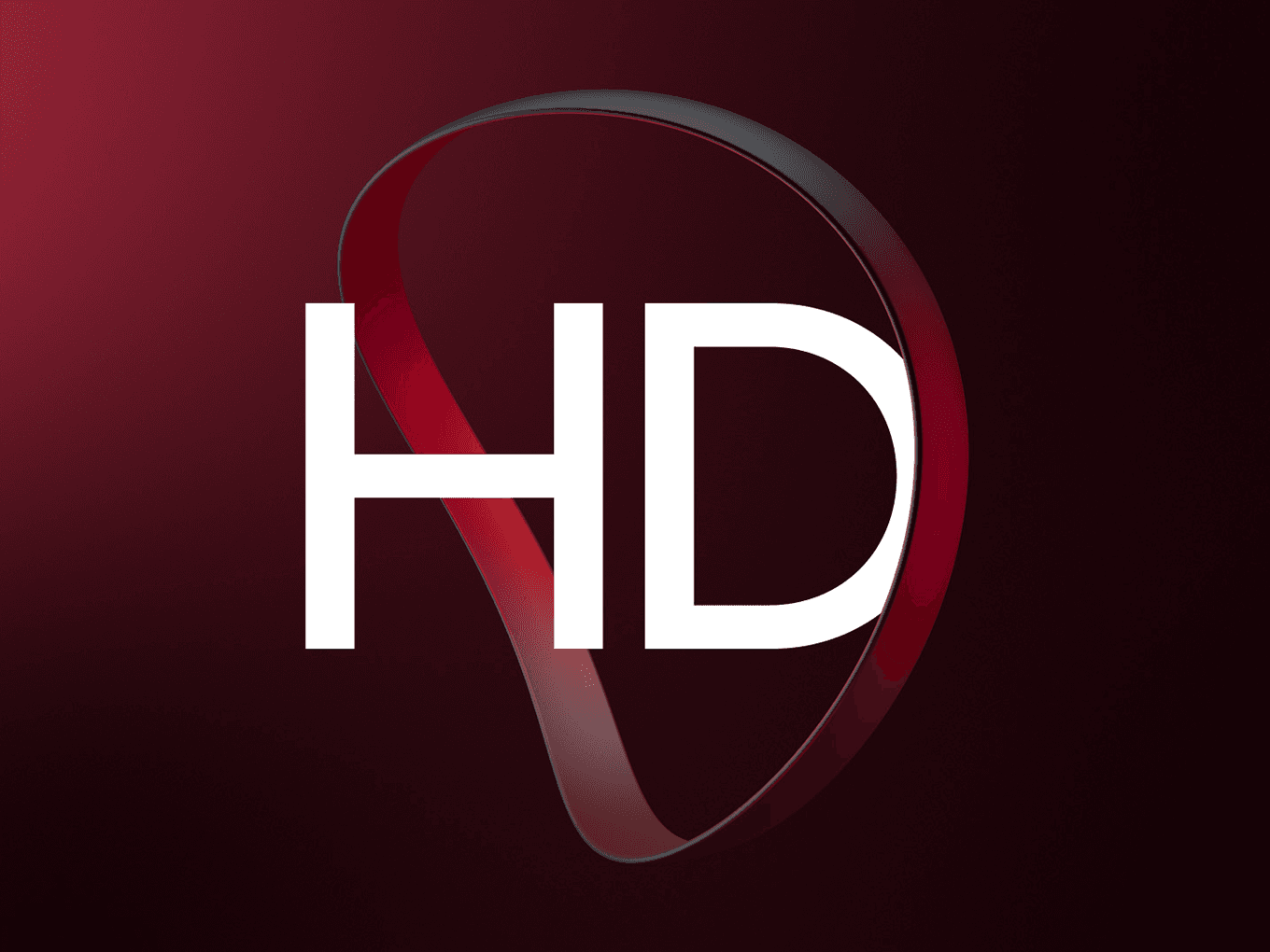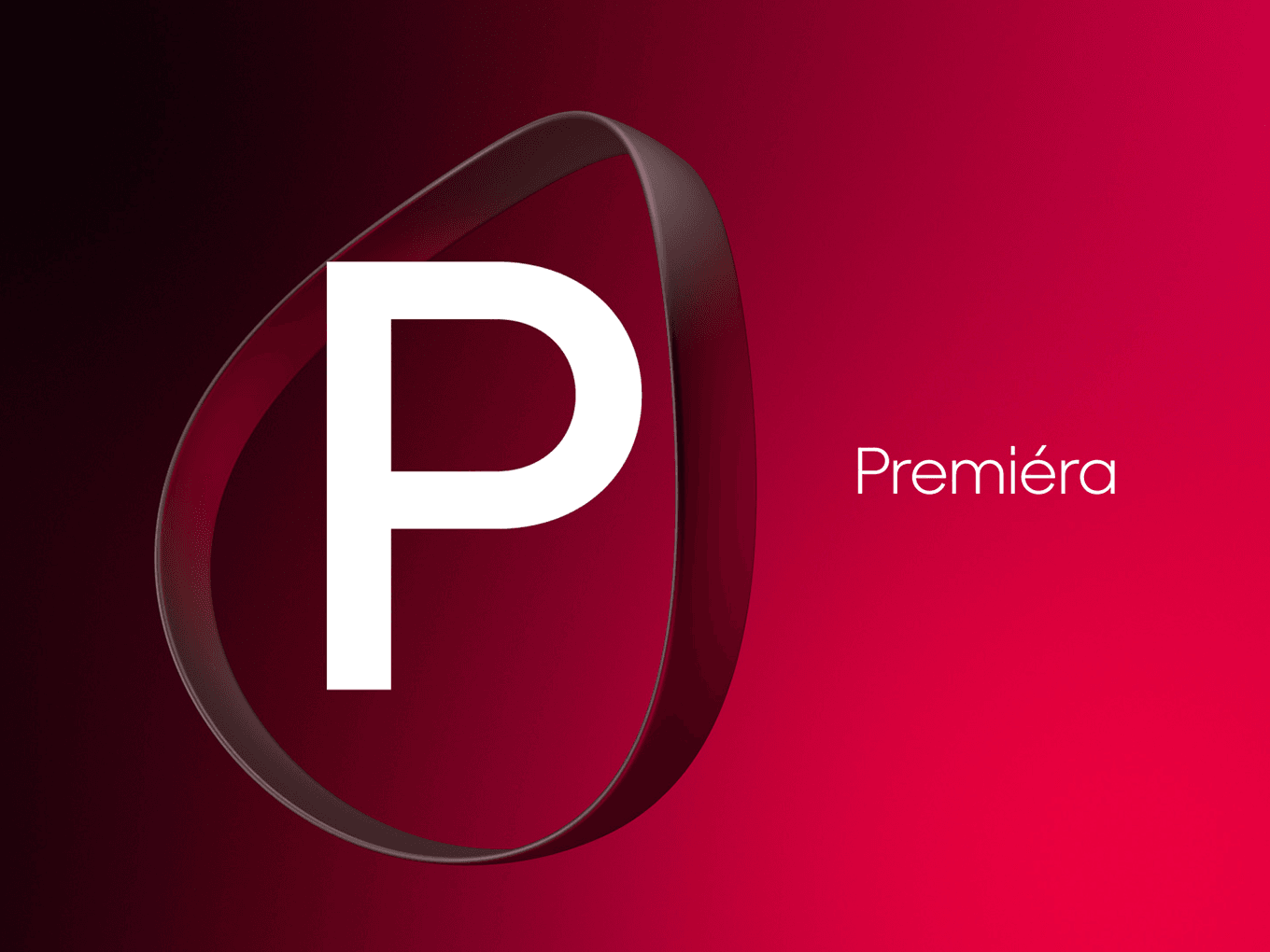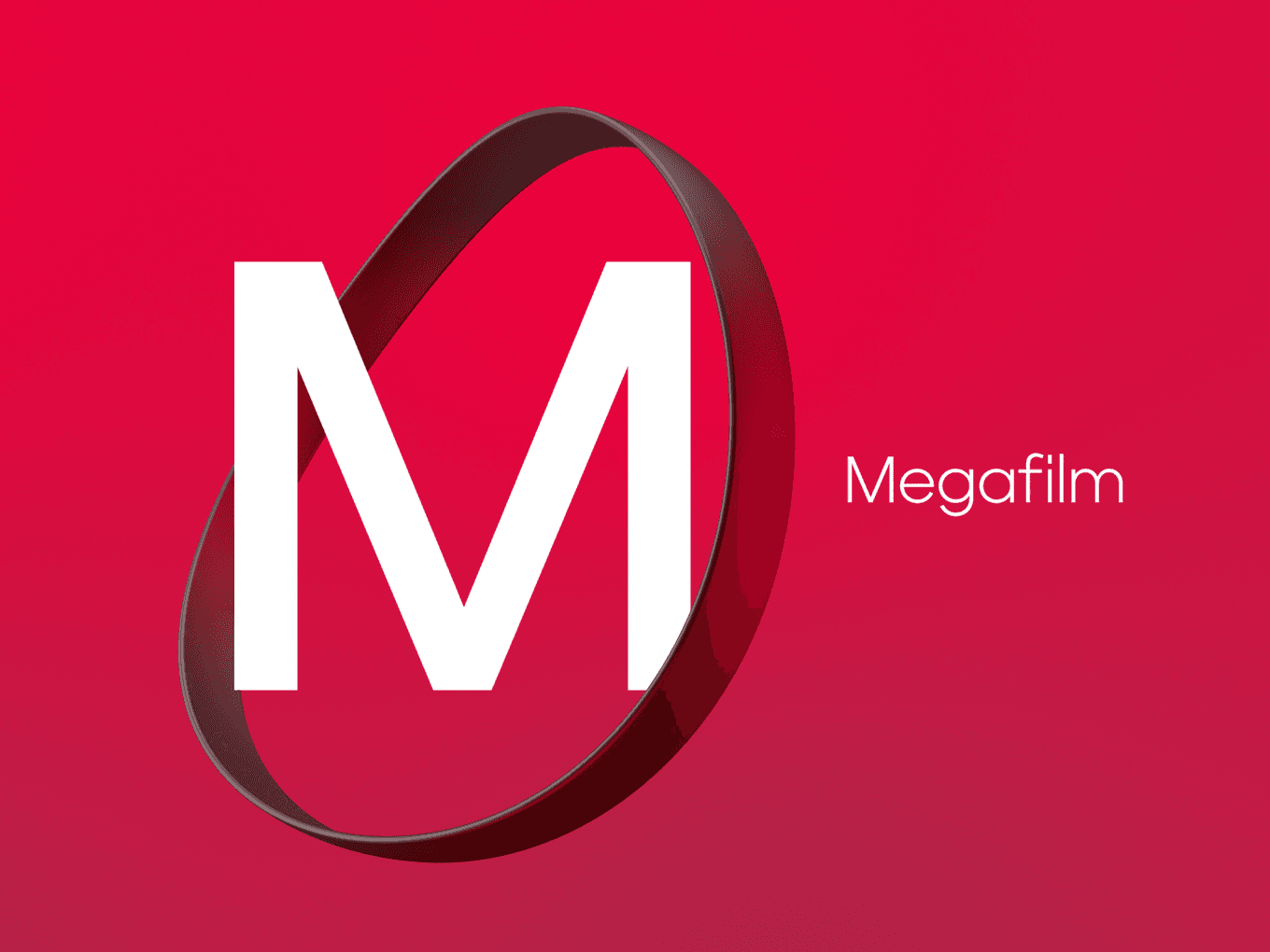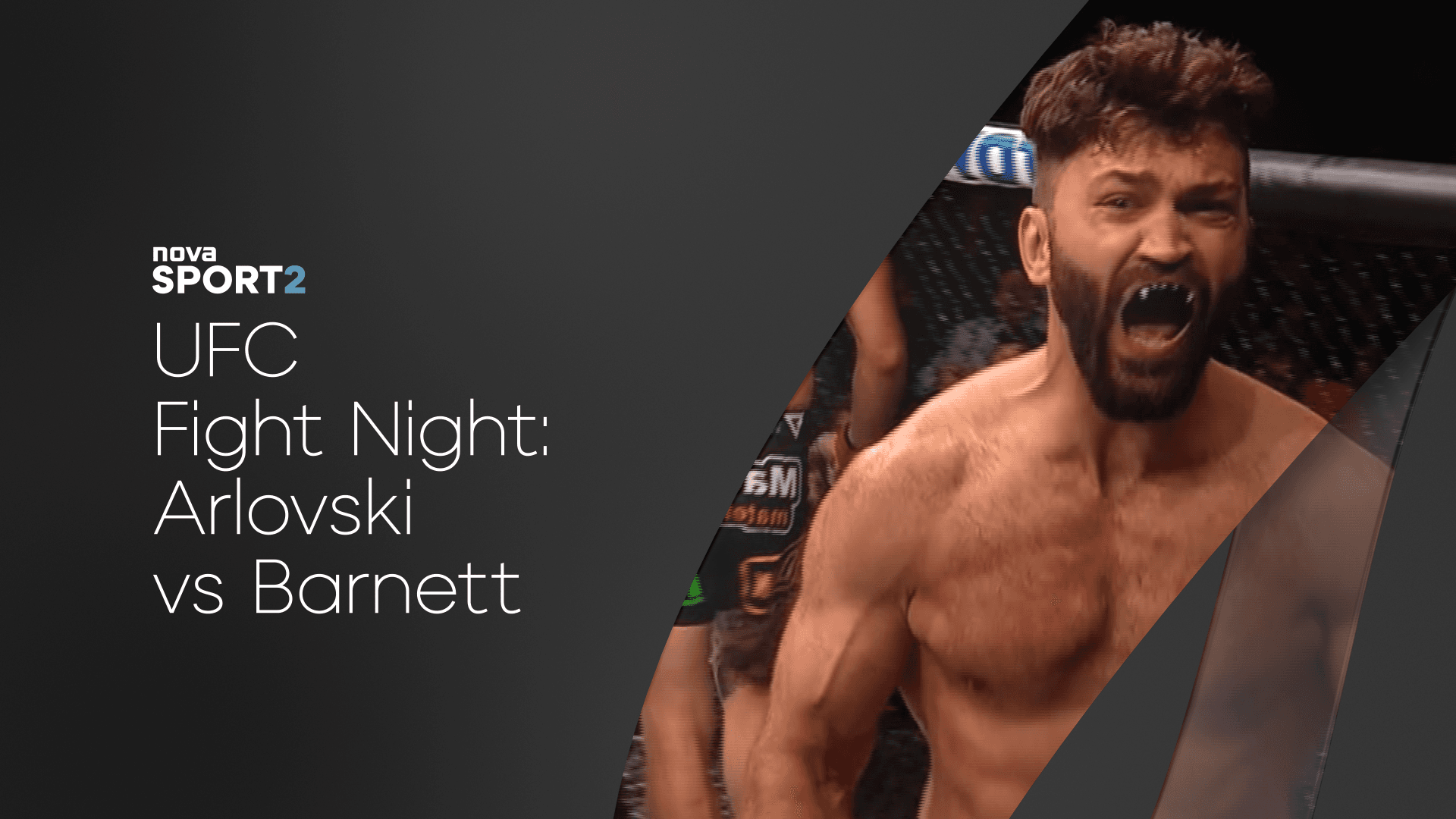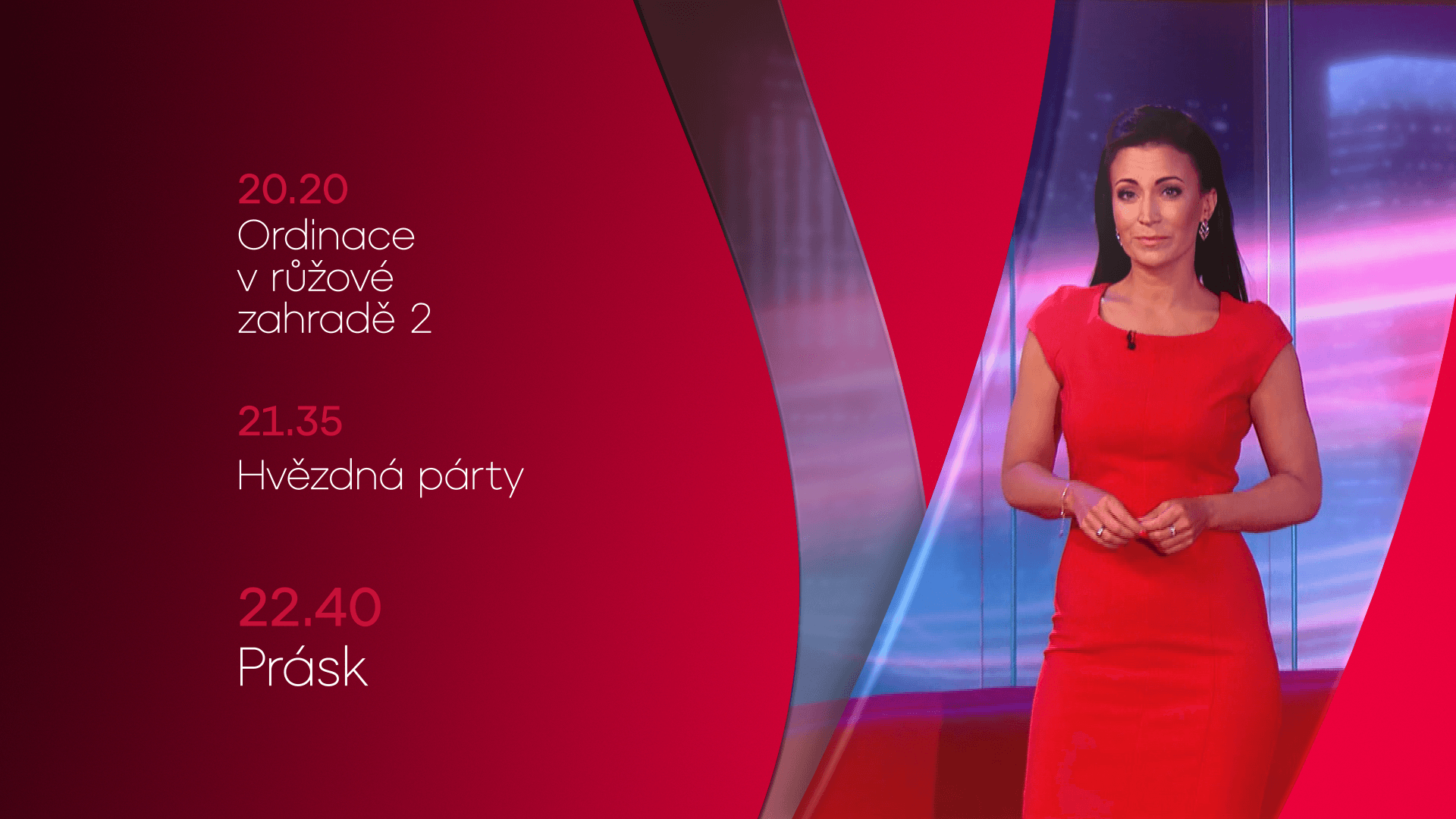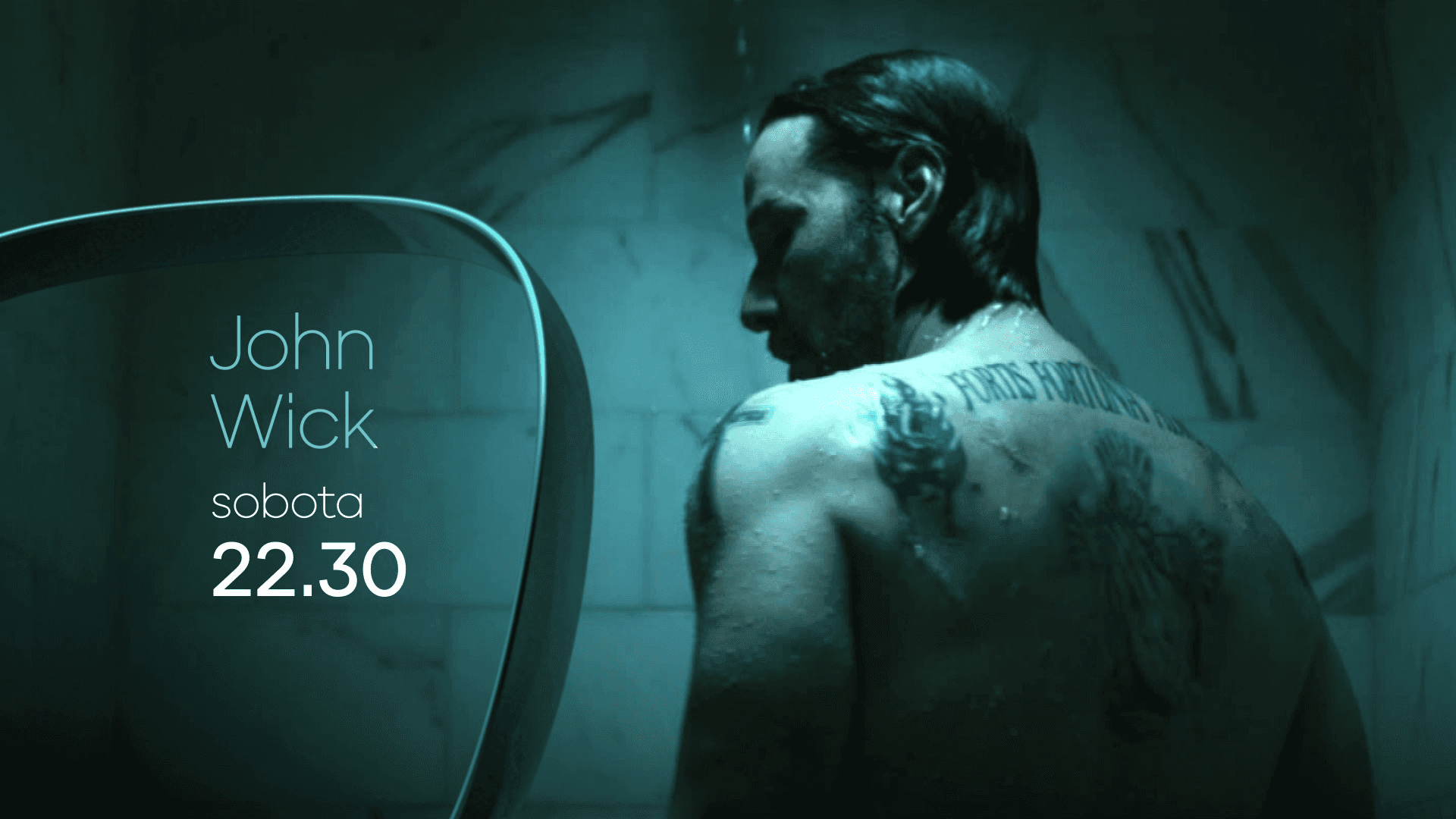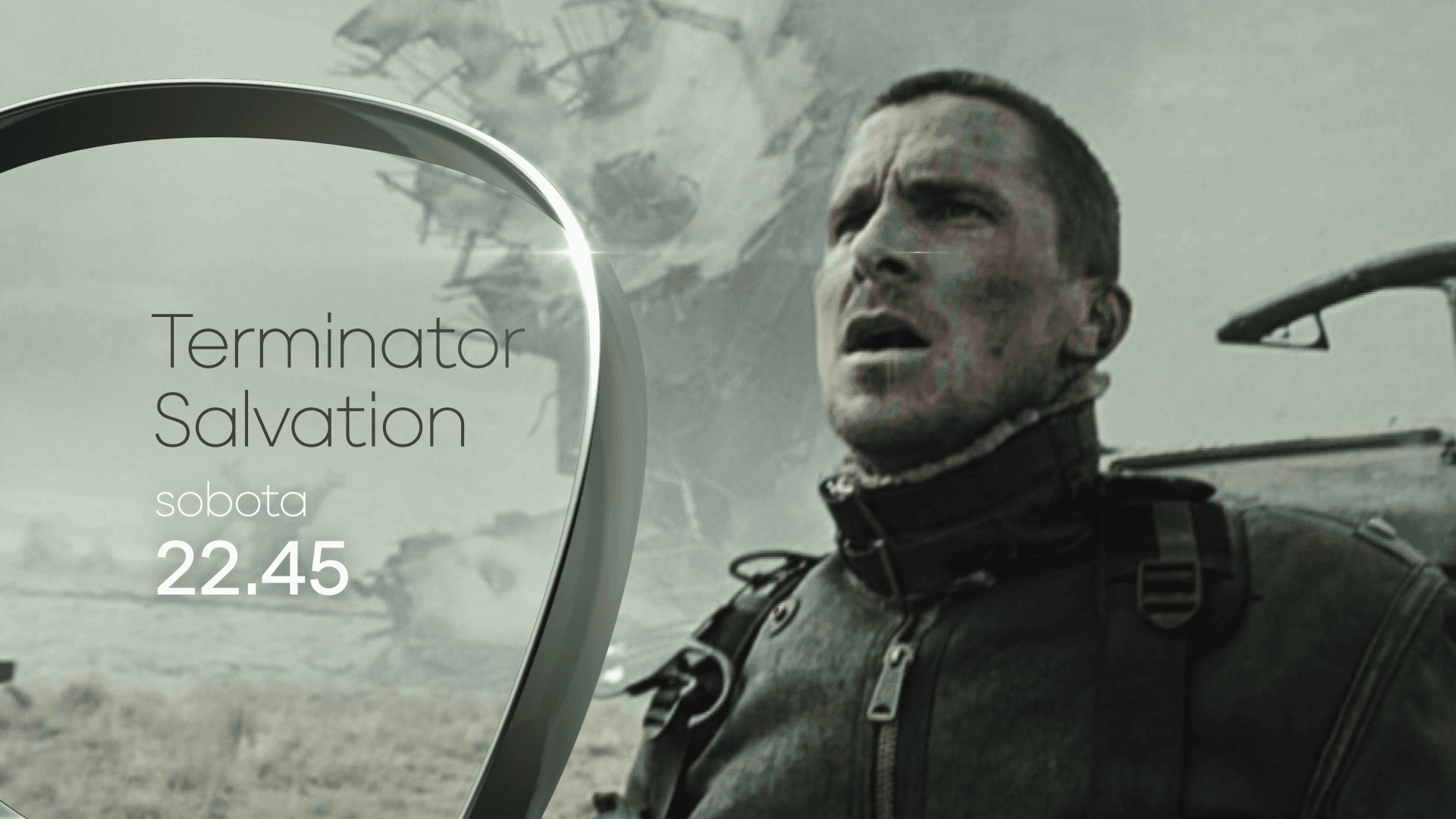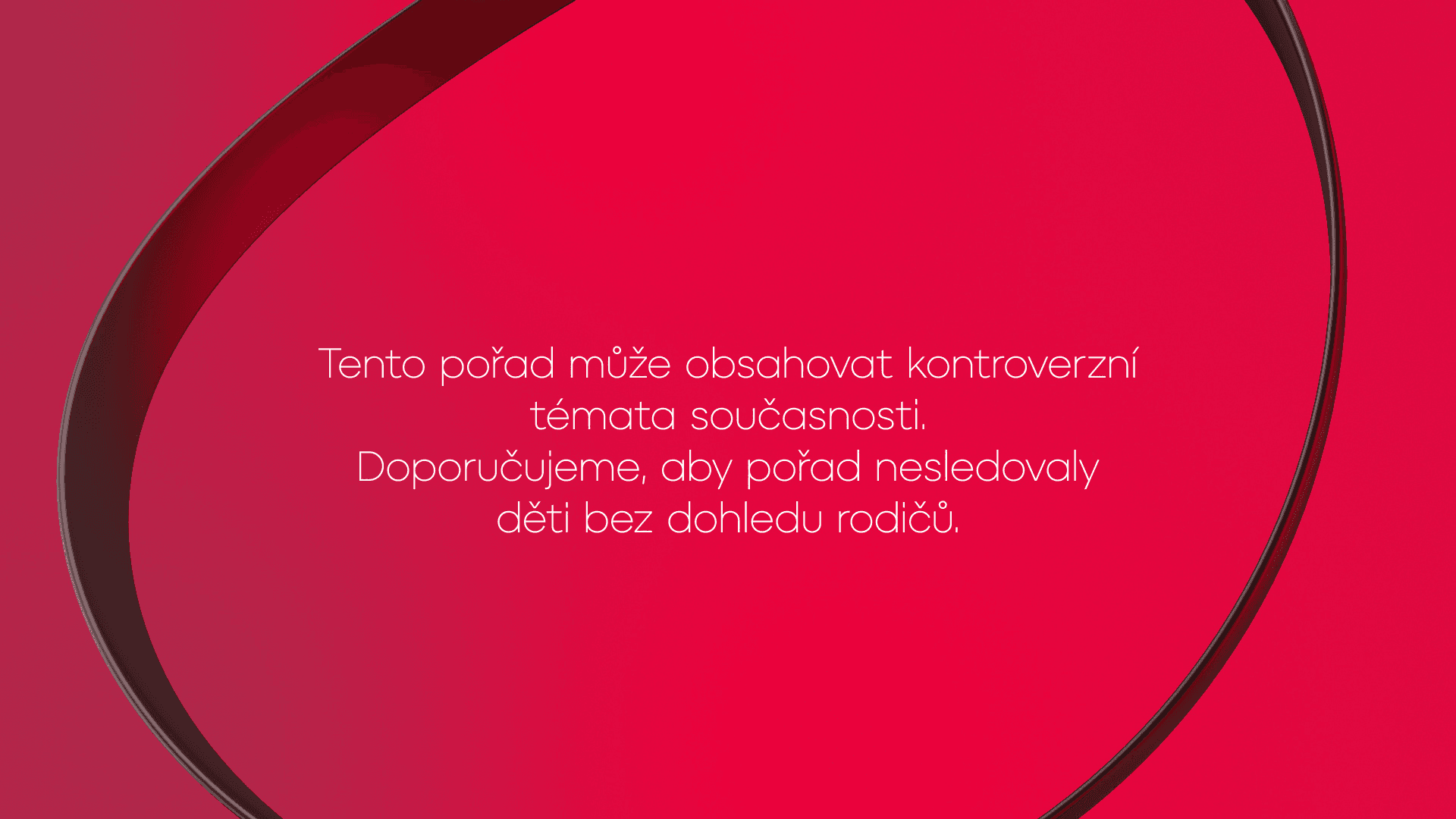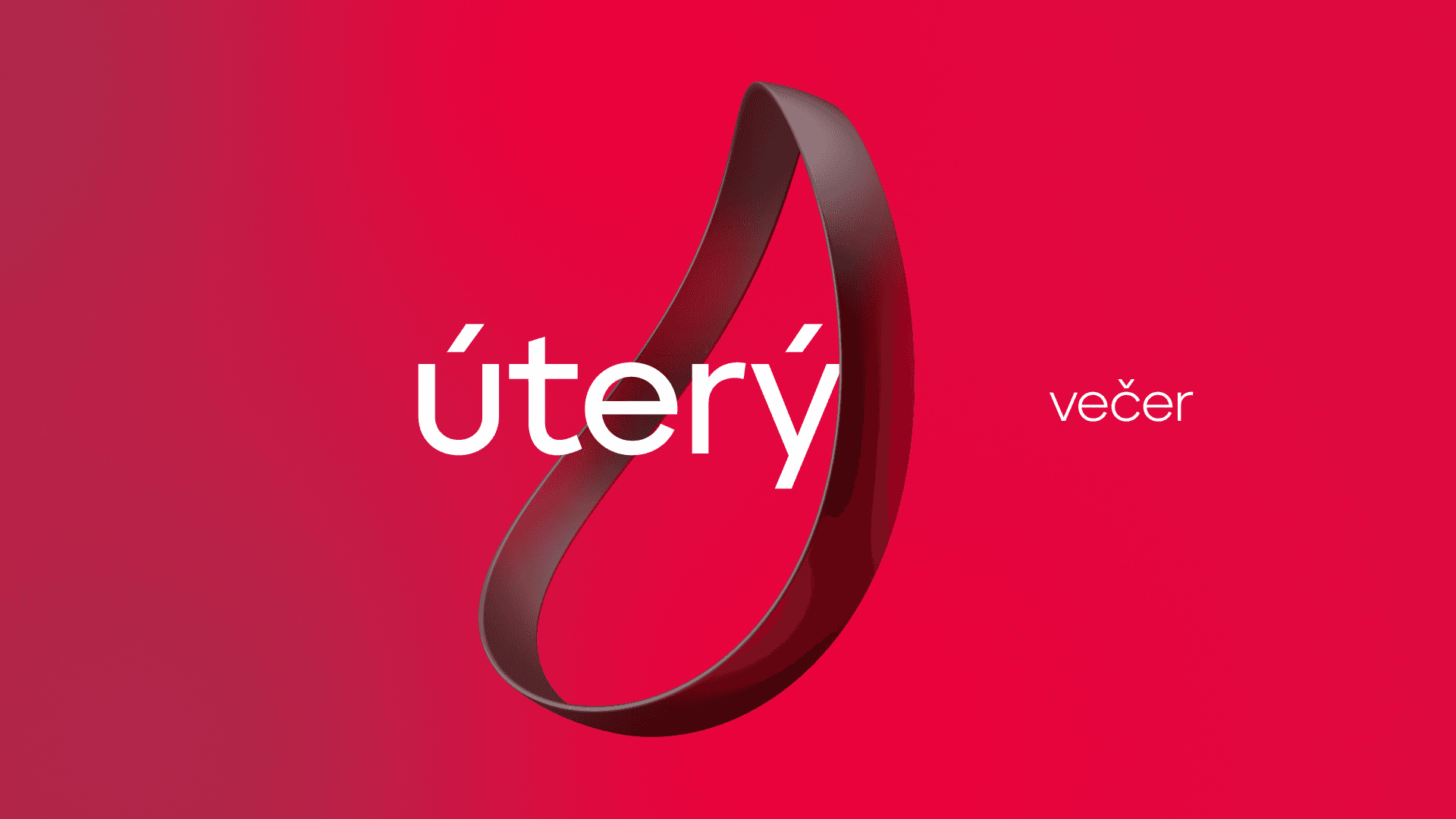
Organica
TV Nova is a commercial television broadcaster in the Czech Republic. It began broadcasting in February 1994 and quickly established itself as the market leader, achieving the largest audience share in the country.
The Organica typeface family, thanks to its versatility and extensive range of styles, serves as an efficient and highly flexible tool within the branding of TV Nova, across television screens, digital displays, and printed communication alike.